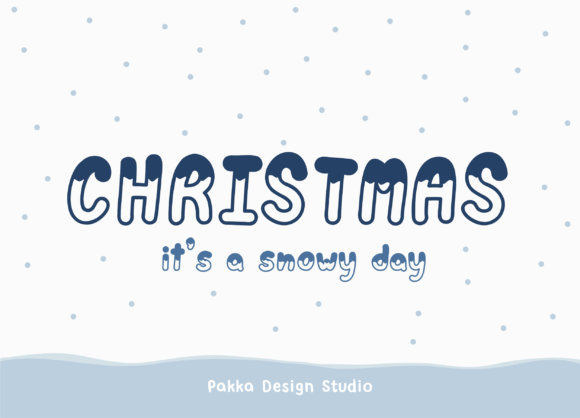
Deck the Halls with the Magic of the Season
Do you remember the excitement of doodling holiday decorations on a snowy day, watching the snowflakes gently fall outside your window? The world seemed like a magical wonderland, full of endless possibilities and creative joy. For designers, capturing that same essence of festive fun is a challenge, but one that the Christmas Font rises to beautifully.
This delightful display outline doodle font is a whimsical journey through a snowy holiday scene, where the magic of Christmas comes to life. With its outline doodle appearance and snowy accents, the Christmas Font adds a touch of imaginative authenticity to your holiday design, making it the perfect choice for projects related to kids, winter festivities, or anything that twinkles with holiday cheer and snowy delight.
Christmas Font Key Features
- Font Family: Christmas Font is a unique, custom-designed font family, specifically created for the holiday season.
- Character Set: Includes a wide range of characters, including uppercase and lowercase letters, numbers, punctuation marks, and special characters.
- Unique Characteristics: Features a festive, holiday-themed design, with intricate details and ornaments that evoke the spirit of Christmas.
Designer Review: Christmas Font
First off, I have to say that the Christmas Font has some great qualities. ✨ The design is playful, fun, and perfect for the holiday season. The font is full of festive elements like snowflakes, holly leaves, and even a few Christmas trees. It’s a great choice for anyone looking to add a touch of whimsy to their designs.
One of the things that really stands out about this font is its versatility. ✨ It can be used for a wide range of designs, from greeting cards to social media posts. The font is also highly customizable, allowing you to adjust the size, color, and even the individual elements to fit your needs.
While the Christmas Font has a lot of great qualities, there are a few limitations to consider. ⚠️ For one thing, the font can be a bit overwhelming if used in large quantities. The many elements can start to feel cluttered and overwhelming, which may not be ideal for every design.
Overall, I think the Christmas Font is a great choice for anyone looking to add a touch of holiday cheer to their designs. It’s fun, versatile, and easy to use. Just be sure to use it in moderation to avoid overwhelming your audience.
Design Considerations
Here are a few things to consider when using the Christmas Font:
- Use it in moderation to avoid overwhelming your audience.
- Consider customizing the font to fit your specific needs.
- Pair it with a clear and concise message to ensure your design is effective.
The Christmas Font is commonly used in holiday-themed designs, such as greeting cards, gift tags, and social media graphics. It can also be used to add a festive touch to wedding invitations, party invitations, and other special occasion designs.
To get the most out of the Christmas Font, try pairing it with bold, bright colors and festive graphics, such as holly leaves, snowflakes, or candy canes. You can also use it in combination with other fonts to create a unique and eye-catching design.
Alternatives to “Christmas Font” for Designers
Great Vibes is a beautiful, cursive font perfect for creating a warm and inviting atmosphere. It’s ideal for use in holiday cards, invitations, and social media graphics. Compared to Christmas Font, Great Vibes has a more elegant and sophisticated feel, making it a great choice for designers who want to add a touch of class to their designs.